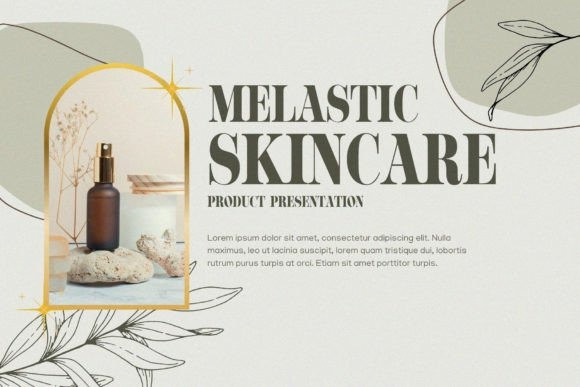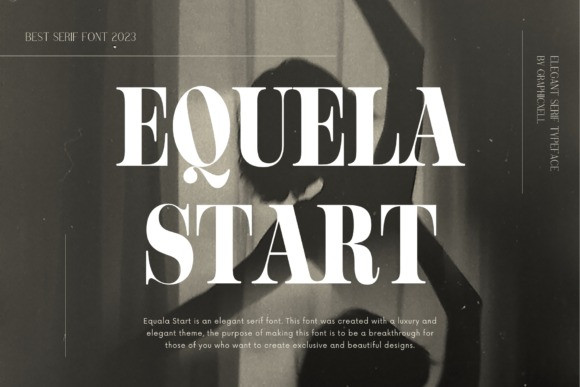
Equela Start Font
Equela Start Font is an elegant serif font. It was created with a luxurious and elegant theme, the purpose of making this font is to be breathtaking for those of you who want to create exclusive and beautiful designs.